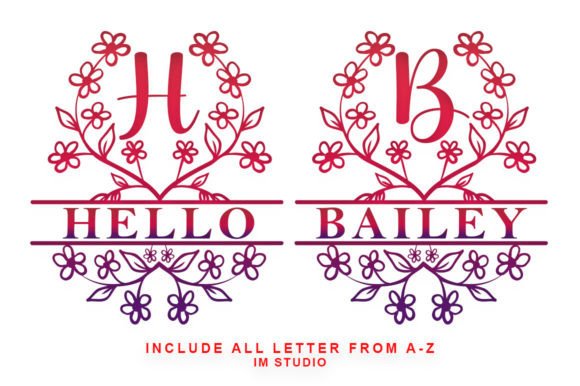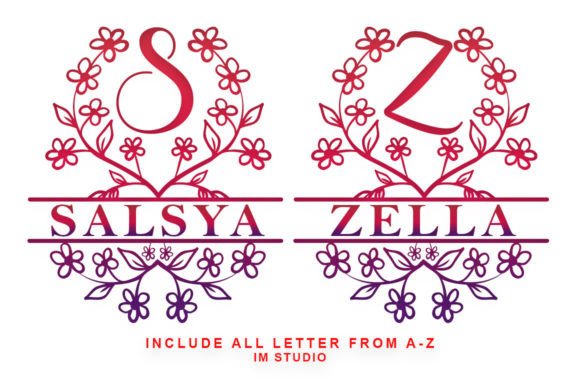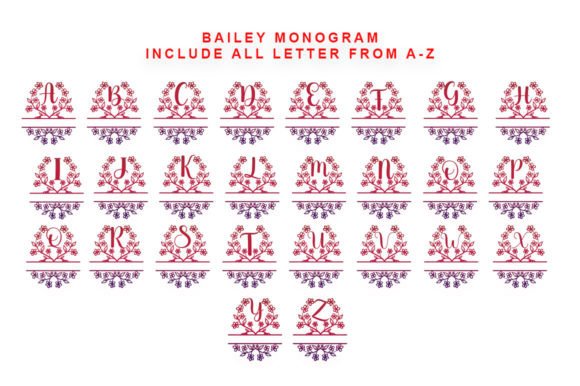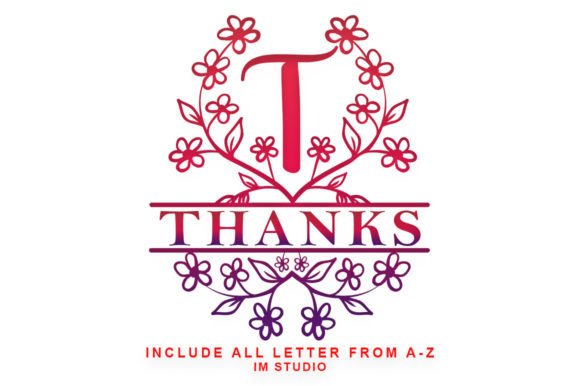
Introducing Bailey Monogram Font: Elevate Your Designs with Elegance
Are you a designer or crafter looking for a font that exudes elegance and sophistication? Look no further than the Bailey Monogram Font. This stunning decorative font is perfect for creating beautiful wedding invitations, stationary art, social media posts, and greeting cards that will leave a lasting impression.
The Charm of Bailey Monogram Font
Bailey Monogram Font is an elegant decorative font that features lovely ornaments, giving it an authentic feel that’s hard to resist. Its unique and intricate design makes it perfect for adding a touch of luxury to any project. Whether you’re a professional designer or a crafty DIY enthusiast, this font is sure to become a favorite in your collection.
What Makes Bailey Monogram Font Special?
- Elegant and Sophisticated: Bailey Monogram Font is designed to impress, with its elegant and sophisticated design that’s perfect for high-end projects.
- Lovely Ornaments: The font features beautiful ornaments that add a touch of whimsy and romance to any design.
- Authentic Feel: The font has an authentic feel that’s reminiscent of traditional printing, making it perfect for creating vintage-inspired designs.
- Versatile: Bailey Monogram Font can be used for a wide range of projects, from wedding invitations to social media posts.
Uses for Bailey Monogram Font
Bailey Monogram Font is incredibly versatile, and can be used for a wide range of projects, including:
- Wedding Invitations: Create beautiful and elegant wedding invitations that will set the tone for the big day.
- Stationary Art: Use the font to create stunning stationary art, including letterheads, notecards, and journals.
- Social Media Posts: Add a touch of elegance to your social media posts, including Instagram graphics, Facebook posts, and Twitter headers.
- Greeting Cards: Create cute and personalized greeting cards for special occasions, including birthdays, holidays, and anniversaries.
Tips for Using Bailey Monogram Font
To get the most out of Bailey Monogram Font, here are a few tips to keep in mind:
- Use it Sparingly: Because of its ornate design, it’s best to use Bailey Monogram Font sparingly, as a headline or title font.
- Experiment with Colors: Don’t be afraid to experiment with different colors and textures to add depth and interest to your design.
| Font Name | Bailey Monogram Font |
| Author | IM Studio |
Bailey Monogram Font is a stunning decorative font that’s perfect for designers and crafters looking to add a touch of elegance to their projects. With its lovely ornaments and authentic feel, this font is sure to become a favorite in your collection. Whether you’re creating wedding invitations, stationary art, social media posts, or greeting cards, Bailey Monogram Font is the perfect choice.